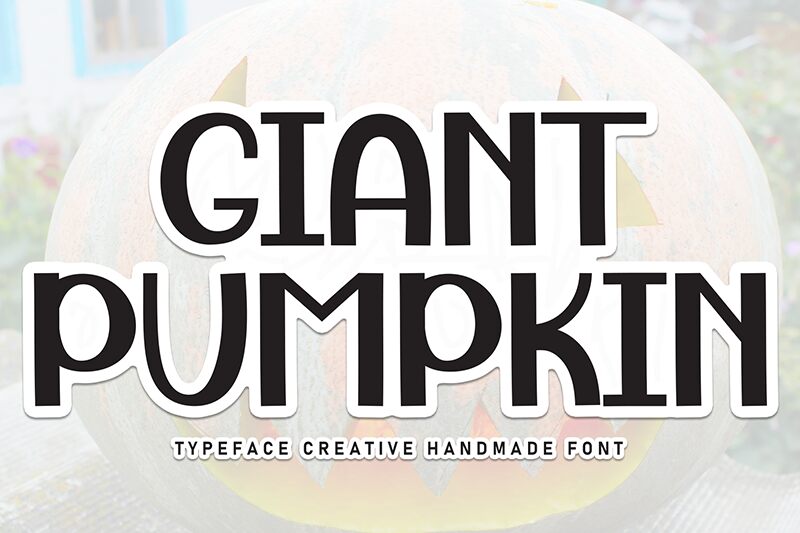
Giant Pumpkin font by Andi Moz is a fancy free font showcasing a modern chunky design that brings out the fun side of your creative projects. Its whimsical letters are finished with slightly rounded edges and smooth connections between the glyphs. The font mimics the design of the spooky Halloween pumpkin heads (also known as Jack O Lanterns).
The font style is suitable for comic book titles, poster designs, digital artwork, magazine covers, and apparel designs. It is also perfect for the minimalist logo of a toy or kids’ fashion brand, book covers and internal cartoons, or album art.
This is a sweet and friendly handwritten display font. Cute and fun, this font is ideal for writing wedding invitations, cards, or any other design that might need a playful touch!